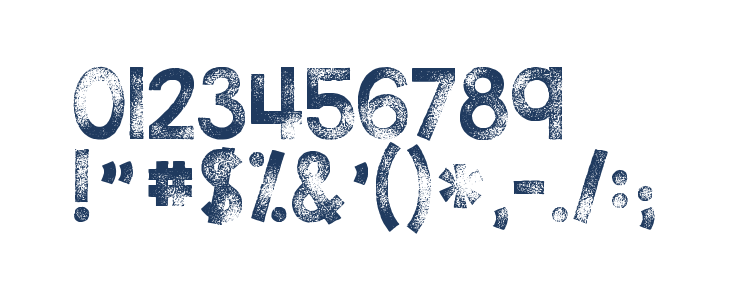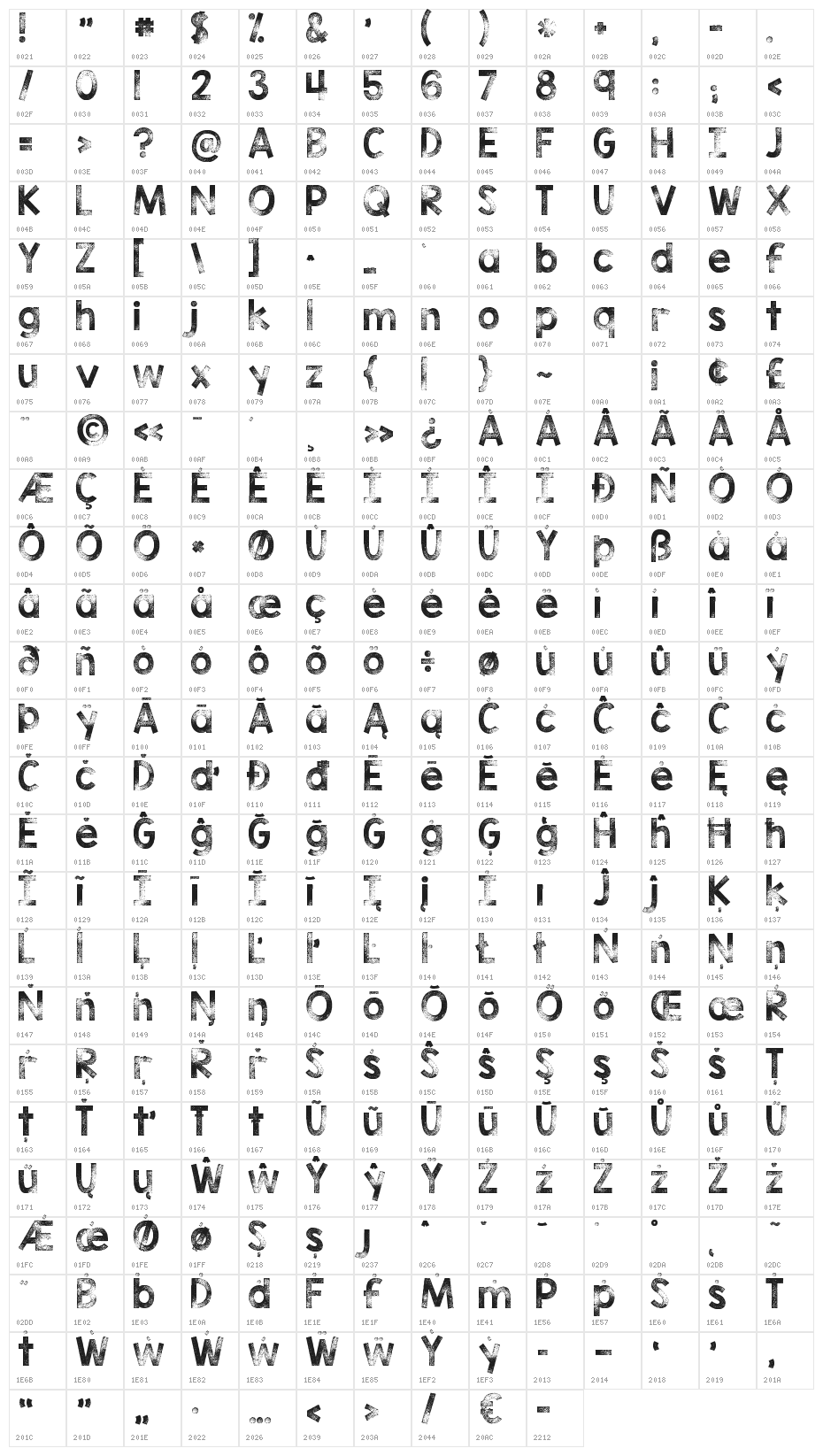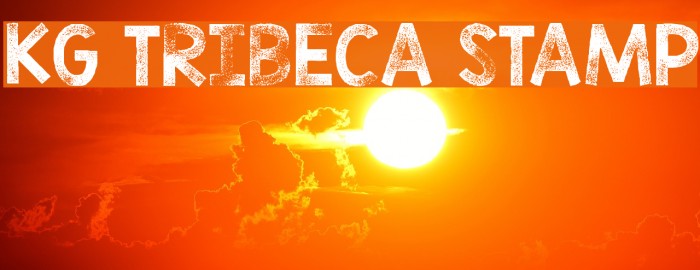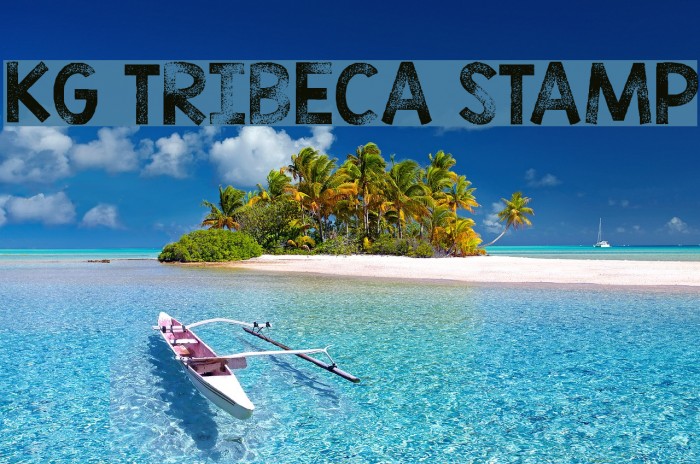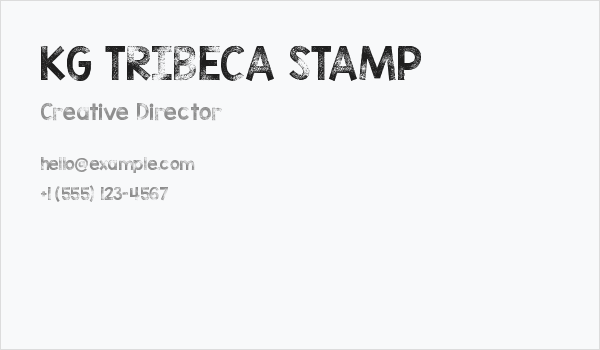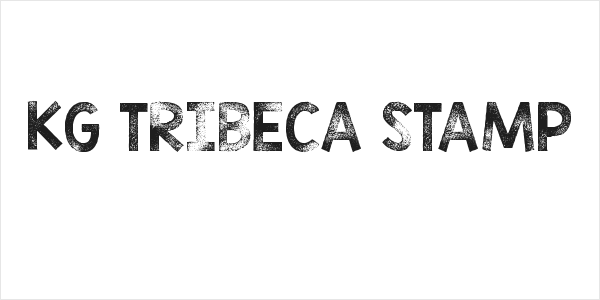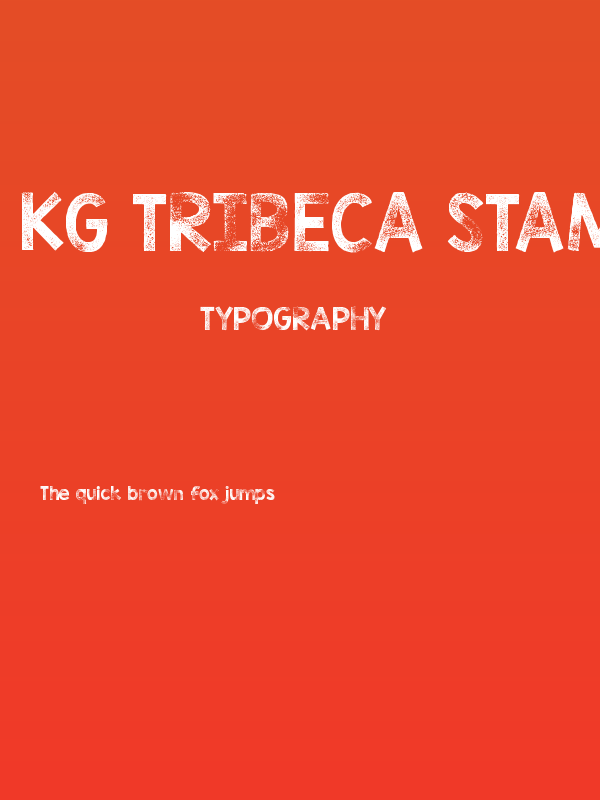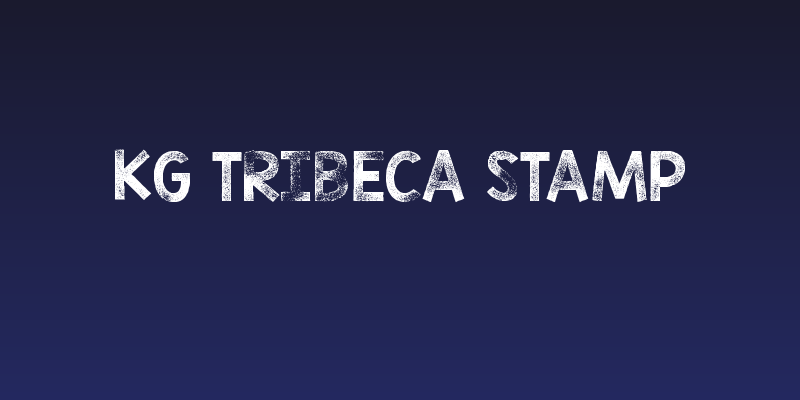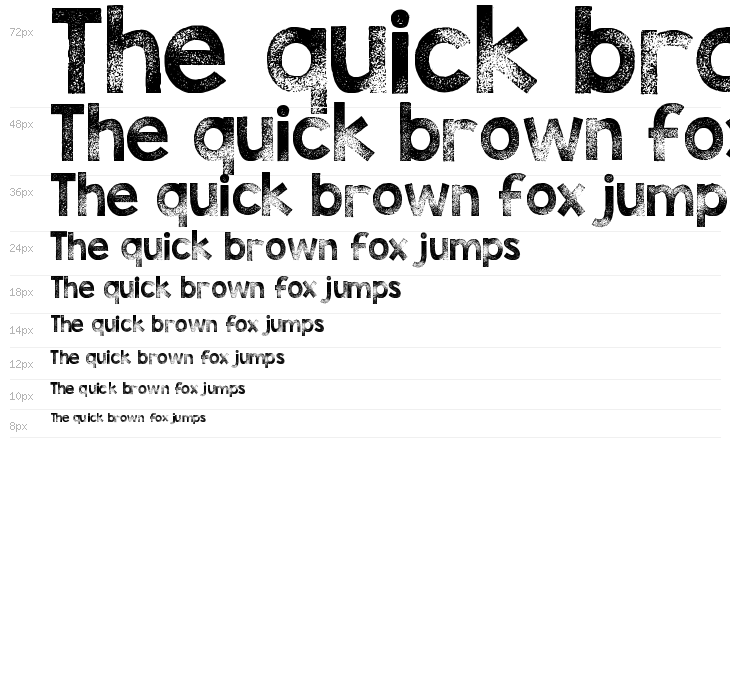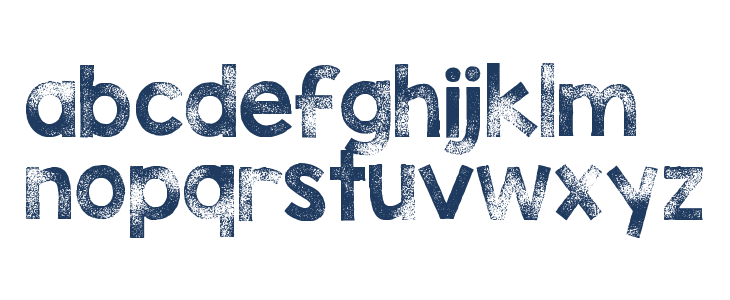
KG TRIBECA STAMP Font
KG TRIBECA STAMP Description
This font features a bold, distressed style that mimics the appearance of a vintage stamp. Each character is marked by a textured, worn effect, giving it a rugged and industrial feel. The uppercase and lowercase letters are consistent in their boldness, while the numbers and special characters maintain the same distressed aesthetic. The font's design is both eye-catching and versatile, suitable for projects that require a strong, impactful visual presence. Its unique texture adds character and depth, making it ideal for creative and artistic applications.
| Overall Style | Vintage, Industrial |
| Proposed Projects | Ideal for posters, branding, packaging, and any design requiring a vintage or industrial look. |